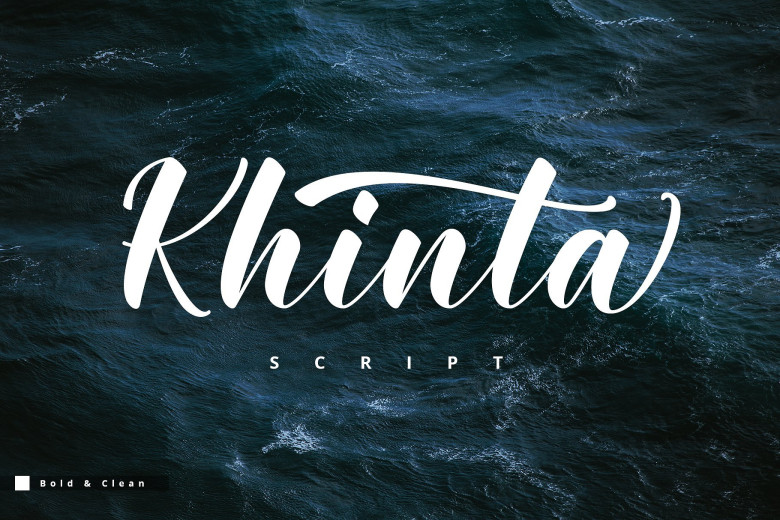
Khinta Script Font
A new bold and clean script font. The script font focuses on a free flow feel, with real pen texture and variance built into each character. To keep things looking natural. Introducing Khinta Font. Khinta designed and shared by FadeLine. Khinta Script Font comes with a bold and clean style, in this font you will find a style that is firm, luxurious and simple. Available 400 glyphs in it! So you can use it freely as you wish and your design work needs!
With a style like this, this font will be suitable in use for logo’s, branding projects, homeware designs, product packaging, mugs, quotes, posters, shopping bags, logo’s, t-shirts, book covers, name card, invitation cards, greeting cards, and all your other lovely projects.